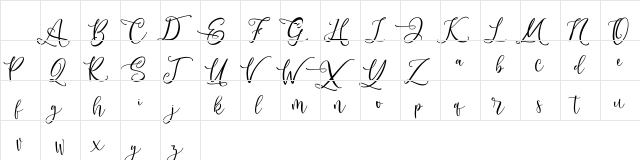
Complete Andriani Script Regular glyph index. Displaying only characters natively supported by Andriani Script Regular font.
Andriani Script flows with the natural rhythm of handwritten lettering, making it ideal for designs that call for warmth and personal expression.
Font Pairing: Combine Andriani Script with a simple geometric sans for maximum contrast - the tension between flowing curves and clean structure is a classic typographic pairing.
Pro Tip: Use Andriani Script for short runs of text - names, titles, or taglines. Extended body copy in script faces tires the eye quickly.